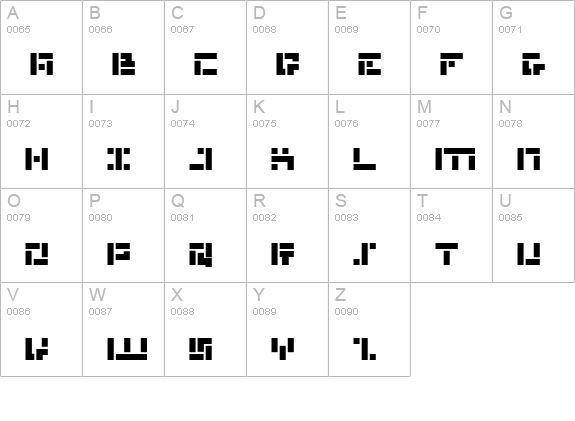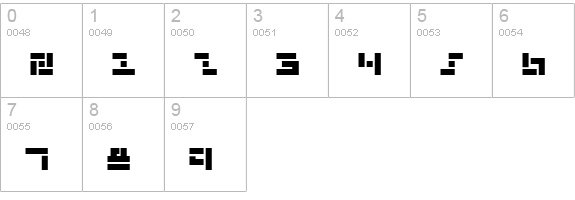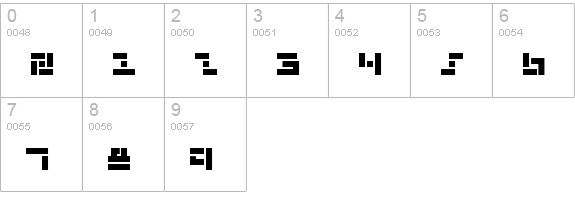
Missile Man Bold is a strong, high-contrast variant in the Missile typeface family \xE2\x80\x94 well suited to headlines, attention-grabbing titles, and strong calls-to-action.
Missile Man Bold font is a striking and dynamic display typeface that exudes power and confidence. With its bold strokes and sharp angles, this font commands attention and makes a bold statement. Perfect for headlines, logos, or any design project that requires a strong and impactful look. What makes Missile Man Bold font even more enticing is that it is available for free download at FontsMarket.com. This means you can easily add this eye-catching font to your collection without any cost. Whether you are a designer looking to enhance your projects or just someone who appreciates quality fonts, Missile Man Bold is a must-have addition to your font library. Download it today and unleash its bold energy in your designs!